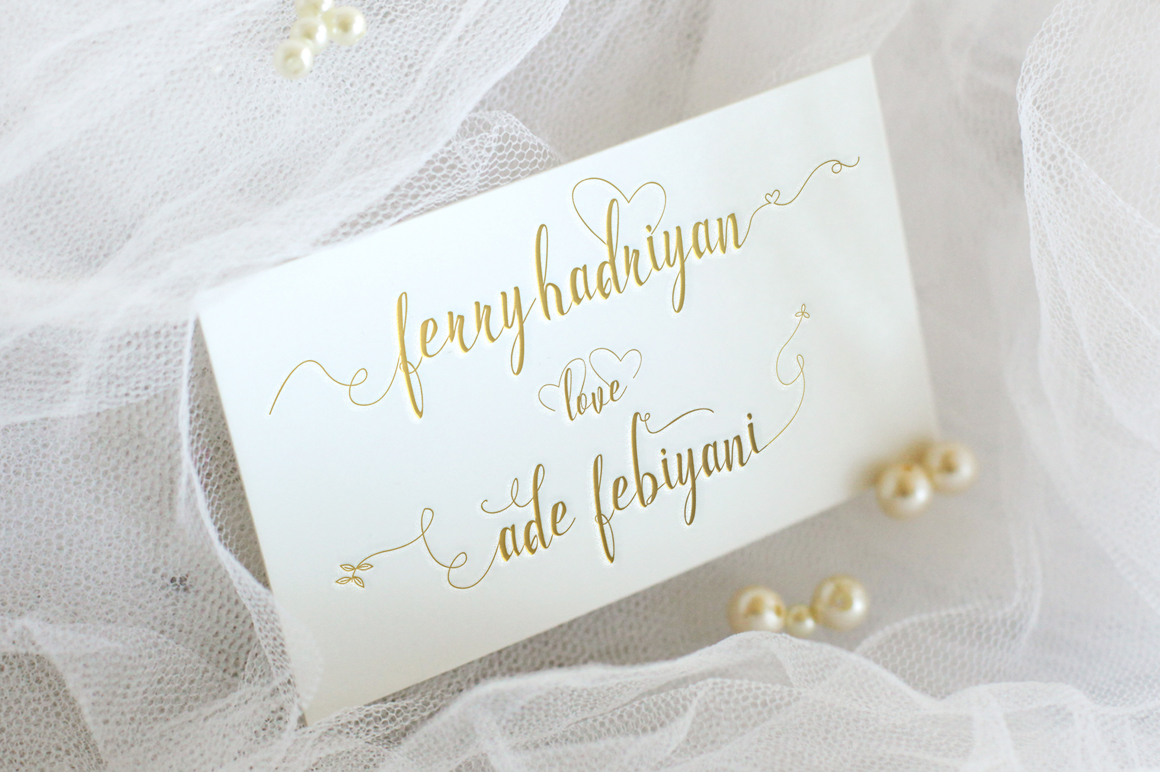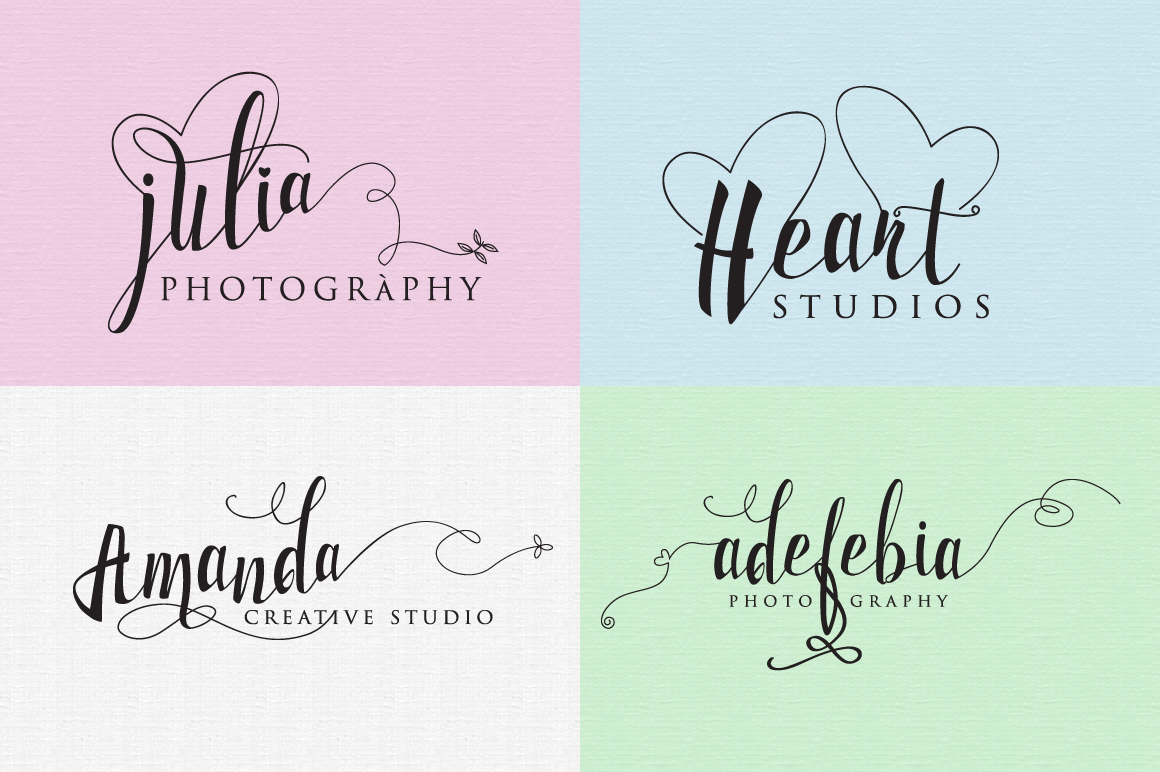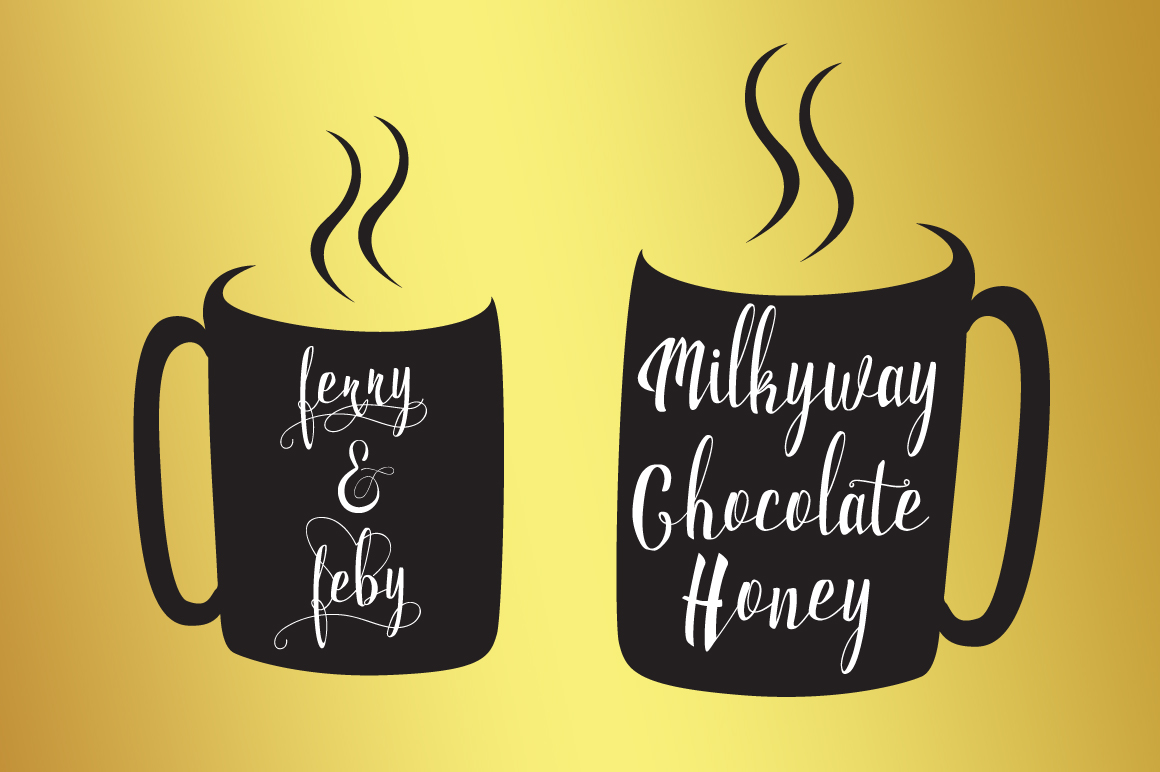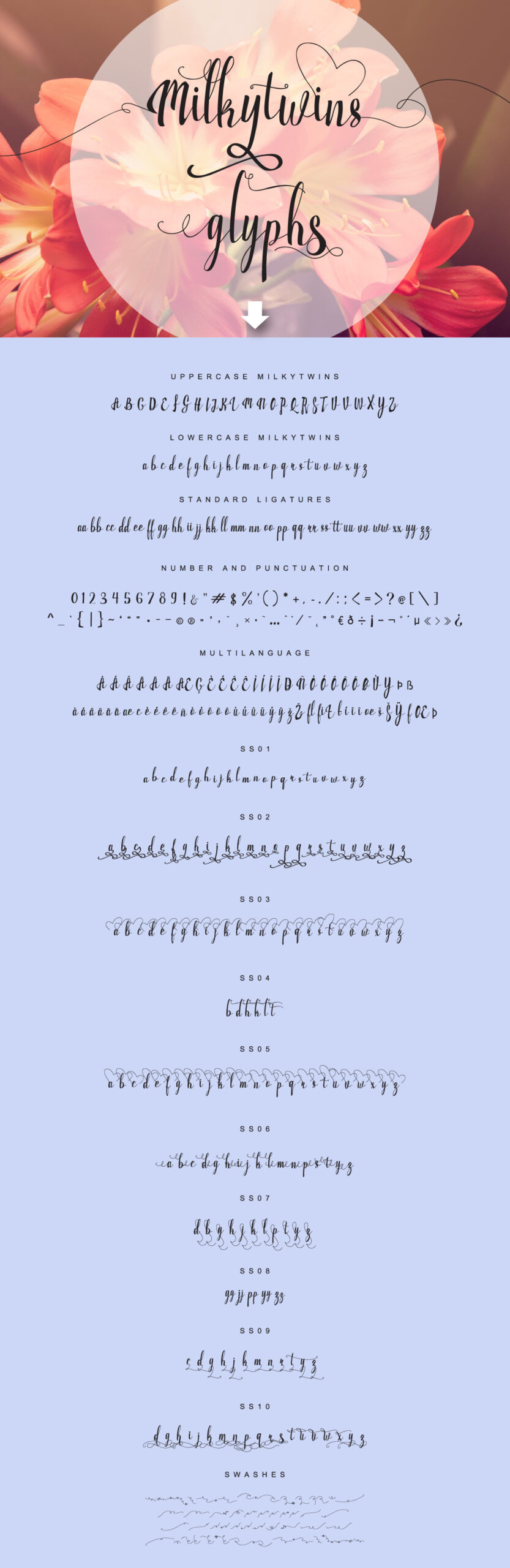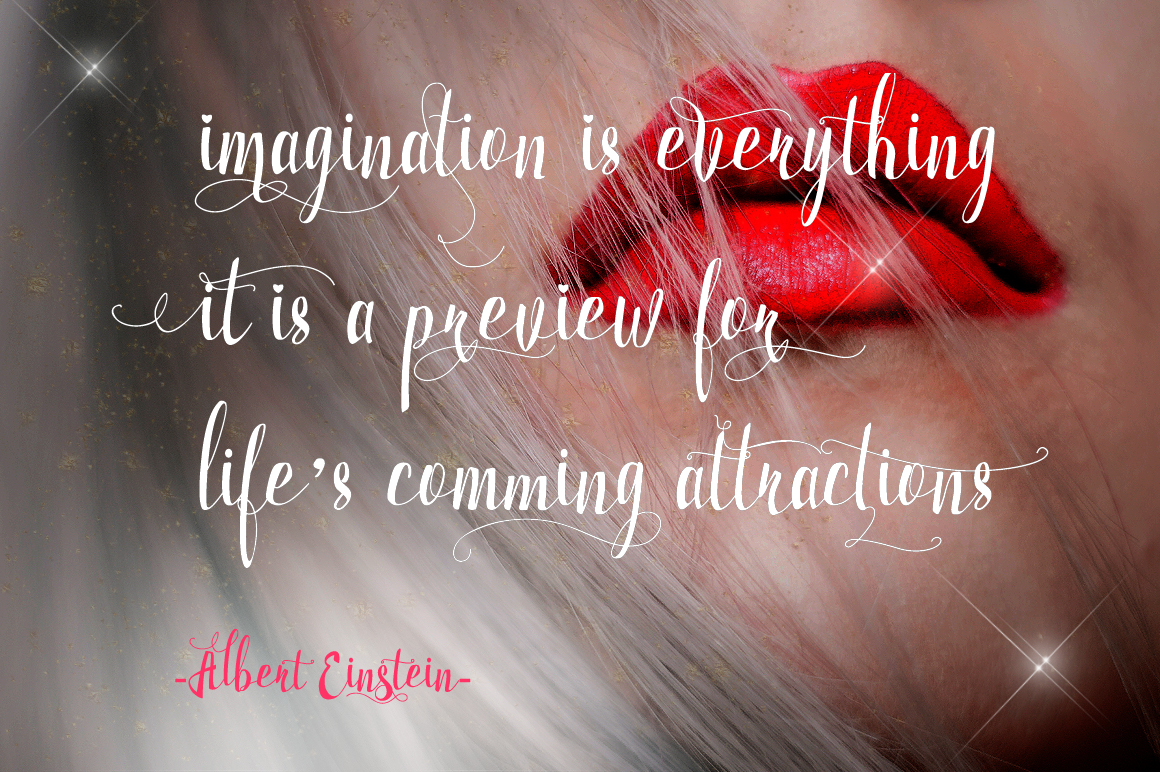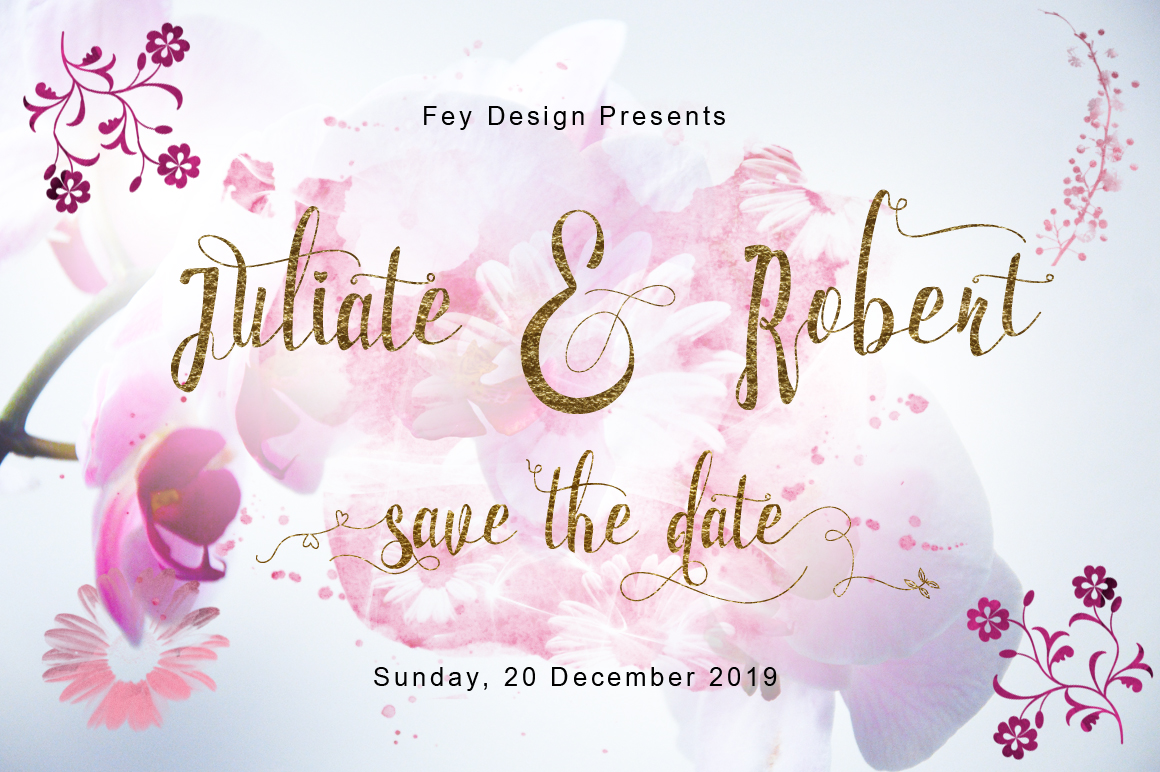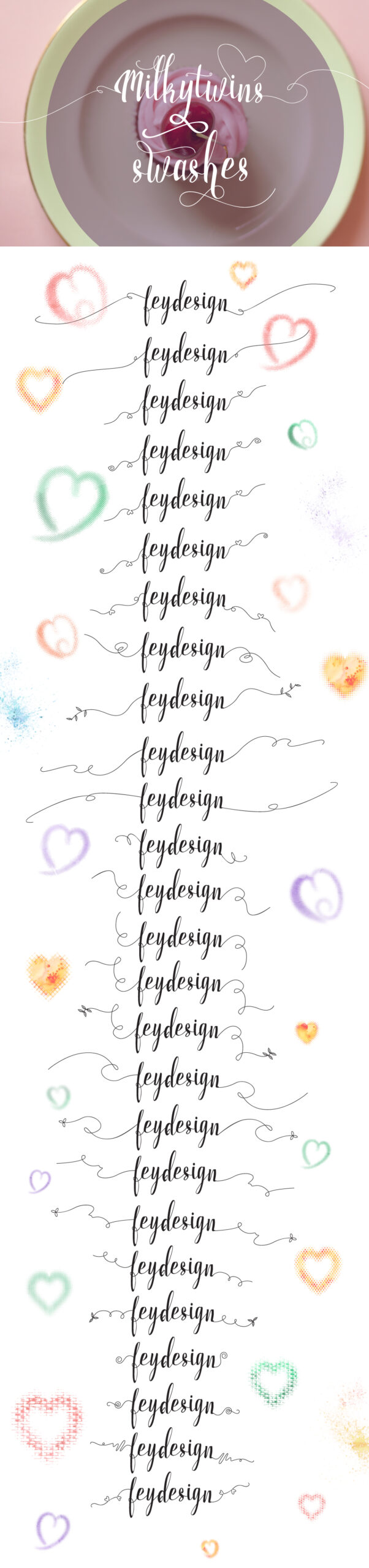
Milkytwins Font
About Milkytwins Font
Milkytwins is a stunning script font with modern, calligraphy style. This font is suitable for a wide range of display uses and comes with tons of alternates so you can create stunning type-based designs.